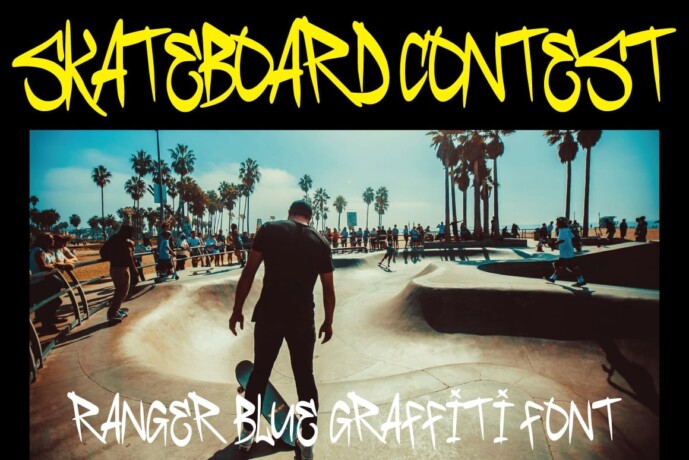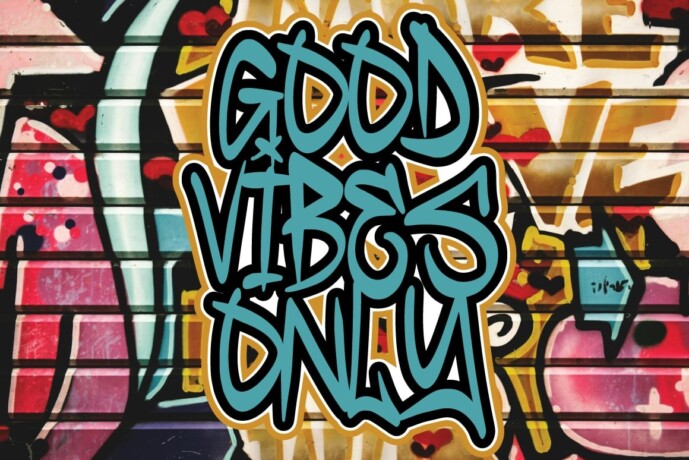
Ranger Blue Graffiti Font
Ranger Blue Graffiti Font , a stylish Graffiti font that exudes an elegant and sophisticated vibe. With its flowing strokes and modern aesthetic, Ranger Blue Graffiti Font is the perfect choice for design projects that require a touch of minimalism and elegance.